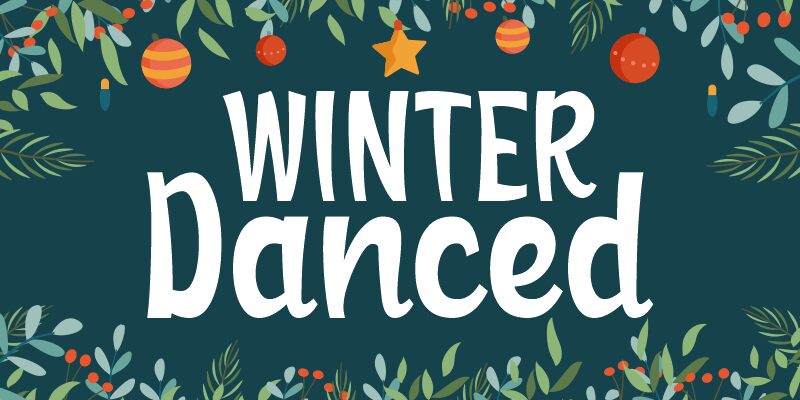
Winter Danced, the bold and condensed display font designed by 7NTypes, is perfect for projects that require a touch of elegance and sophistication. Its unique letterforms create a sense of motion, as if each character is gracefully dancing across the page. Winter Danced adds a touch of personality to any design project, making it suitable for use in branding materials, headlines, posters, and even wedding invitations. With its bold weight and condensed width, Winter Danced is sure to make a statement in any design layout. Let this font inspire your creativity and bring your designs to life!